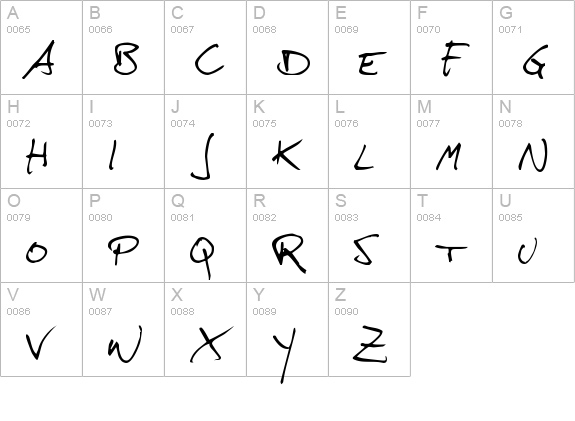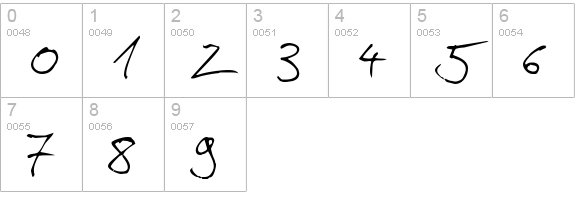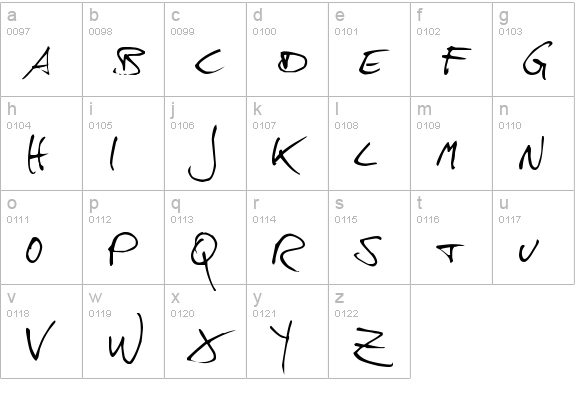
hans hand Font Details
Introducing the extraordinary Hans Hand font, a unique and captivating typeface that is sure to make a lasting impression. With its playful and energetic design, this font is perfect for adding a touch of personality to any project. Hans Hand is a free font that effortlessly combines elegance with a sense of fun. Its carefully crafted letterforms have a charming hand-drawn quality, making it ideal for a wide range of creative endeavors. Whether you're designing logos, posters, invitations, or social media graphics, this font will bring a delightful touch to your work. What sets Hans Hand apart is not only its visually appealing aesthetics, but also its versatility. This font is equally well-suited for both formal and informal applications, making it a valuable asset for designers of all levels. Its smooth lines and flowing curves create a sense of fluidity and movement, giving your text a dynamic and engaging look. And the best part? Hans Hand is freely available to download at FontsMarket.com. This means you can incorporate this fantastic font into your projects without any additional cost. Open up a world of creative possibilities with this unique typeface and let your imagination soar. Don't miss out on the opportunity to enhance your designs with the charm and vibrancy of Hans Hand. Download it for free today at FontsMarket.com and elevate your typography to new heights.